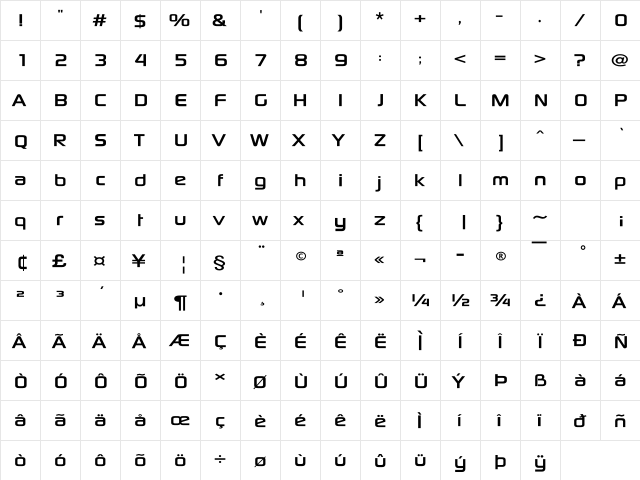
Sony Sketch EF Bold
Design Context for Sony Sketch EF Typeface
Sony Sketch EF is a composed and adaptable typeface that performs quietly and consistently across a wide range of design contexts. The heavy weight commands attention and anchors typographic hierarchies.